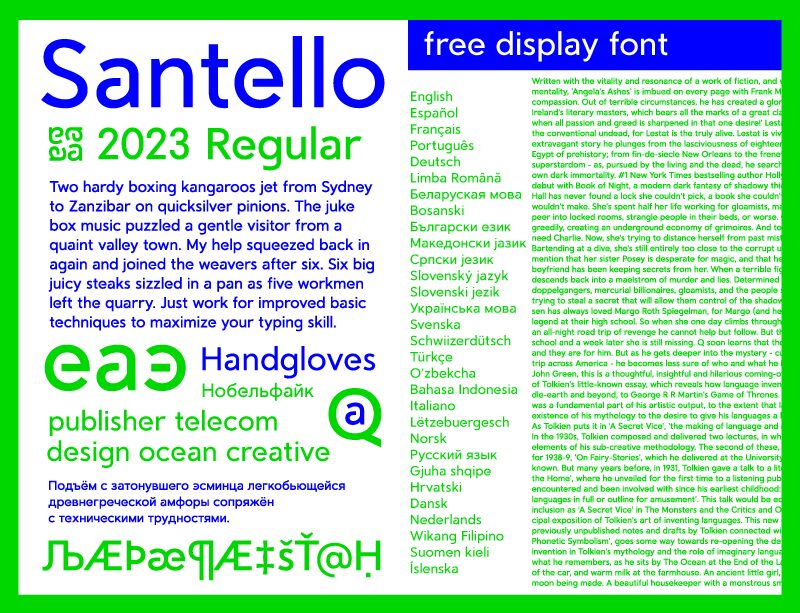
Santello is a striking sans serif font that commands attention with its bold, geometric forms and clean lines. Designed by Aleksei Poteichuk, this typeface exudes a sense of modern elegance and confidence. The sharp, angular letterforms create a distinct visual rhythm, while the subtle stroke variations add depth and texture to the design. Santello's robust personality makes it an excellent choice for a wide range of applications, from bold headings to impactful branding.
The font's versatility shines through, lending itself seamlessly to projects that require a strong, memorable presence. Whether crafting eye-catching headlines, designing minimalist layouts, or seeking a captivating typeface for digital interfaces, Santello's unique character and timeless aesthetic make it an invaluable asset for designers and creative professionals.
Santello Regular